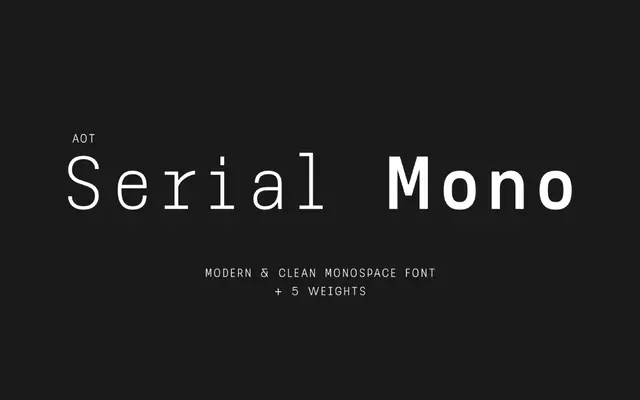
AOT Serial Mono
A five-weight monospaced sans from Prioritype Co, released with a variable font file and aimed at code, UI and editorial work.
Released in April 2025, it spans Light to Bold with each weight available as OTF, TTF, WOFF and a variable font file. The design keeps a clean geometric structure with enough personality to move beyond purely functional code typography into branding and poster work. There are no italics or condensed cuts, which limits range but keeps the offering focused.
A monospaced typeface with a clean, contemporary structure throughout all five weights; sits firmly in the mono category with no proportional variant offered.